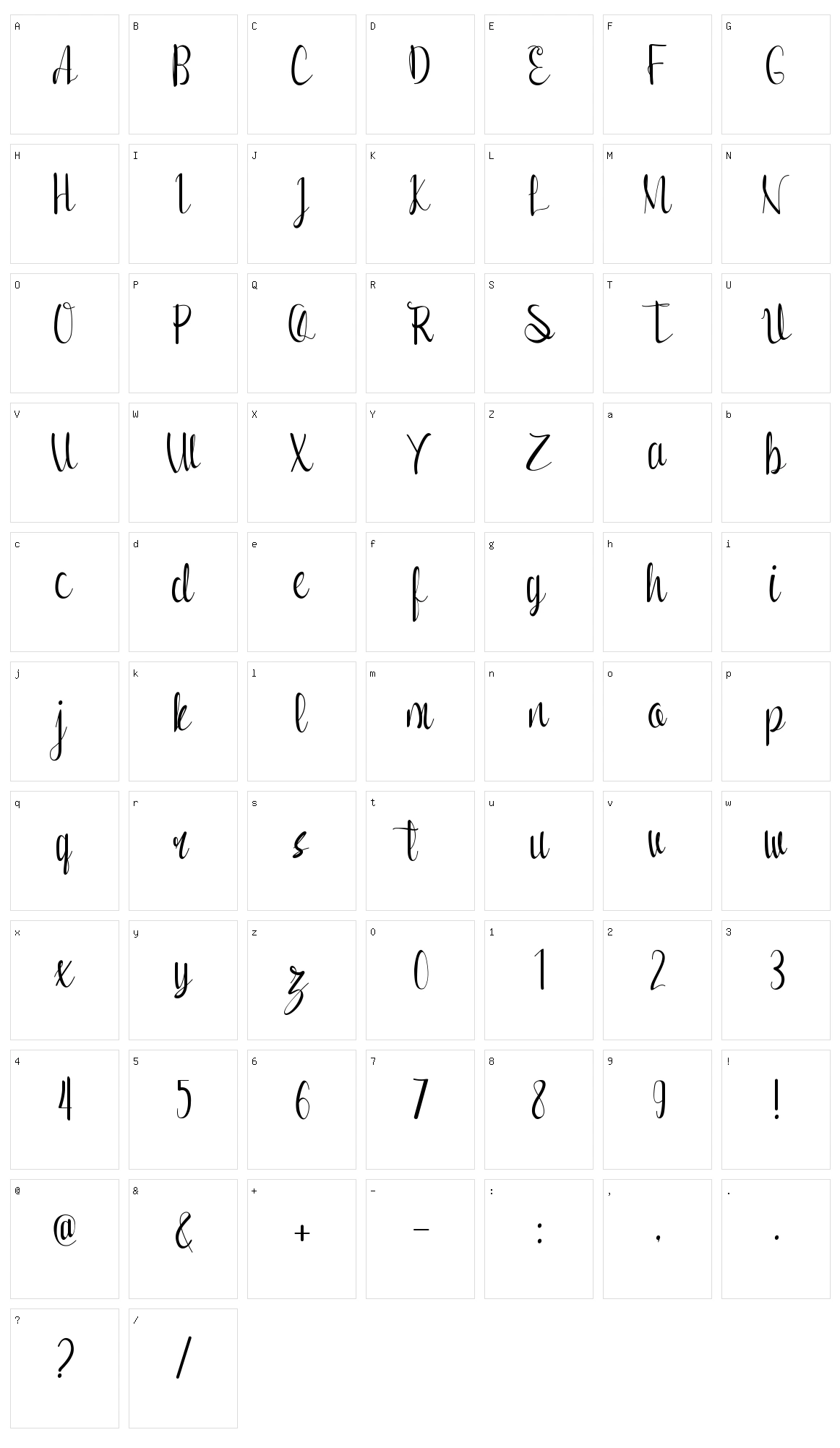
The free font Romansha is carefully designed by Indriyanti, showcasing a thoughtful balance of creativity and usability and falls under the Script font style. When you download the ZIP file, it contains only 15.16 KB of font files, making it lightweight and quick to download. Please review the license details below to understand permitted usage and distribution rights. If license information is not available, we recommend using this font for personal projects only or contacting the author directly for commercial usage permissions.